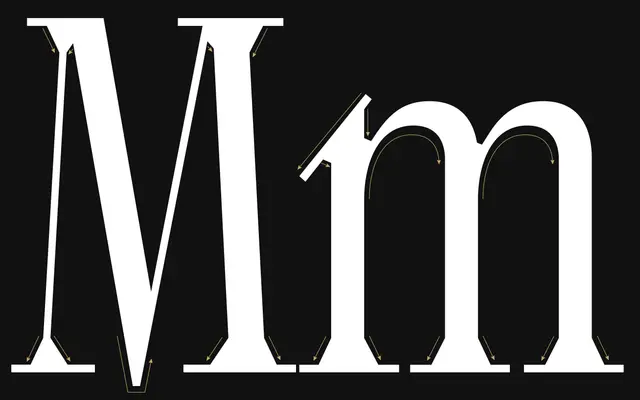
Claus
Zetafonts · Mario De Libero · 2023
A reinvention of the 1929 Stunt Roman hand-lettered alphabet, redrawn across eight weights with matching italics and calligraphic details borrowed from Art Deco penmanship.
Mario De Libero drew Claus from Ross Frederick George's Stunt Roman, first published in the Speedball Text Book in 1929, adding etched serifs and calligraphic alternates to bring the narrow Old Style forms into contemporary use. The family runs from Thin to Black with a full italic companion added in 2024, plus two variable fonts spanning the weight axis. OpenType features include small caps, discretionary ligatures and stylistic sets, making it suited to editorial layouts, luxury packaging and festive branding.
Claus is rooted in the Old Style letterforms of the hand-lettered Stunt Roman, redrawn with etched serifs, calligraphic quirks and narrow Art Deco proportions, placing it firmly in the Old Style serif tradition with display characteristics.